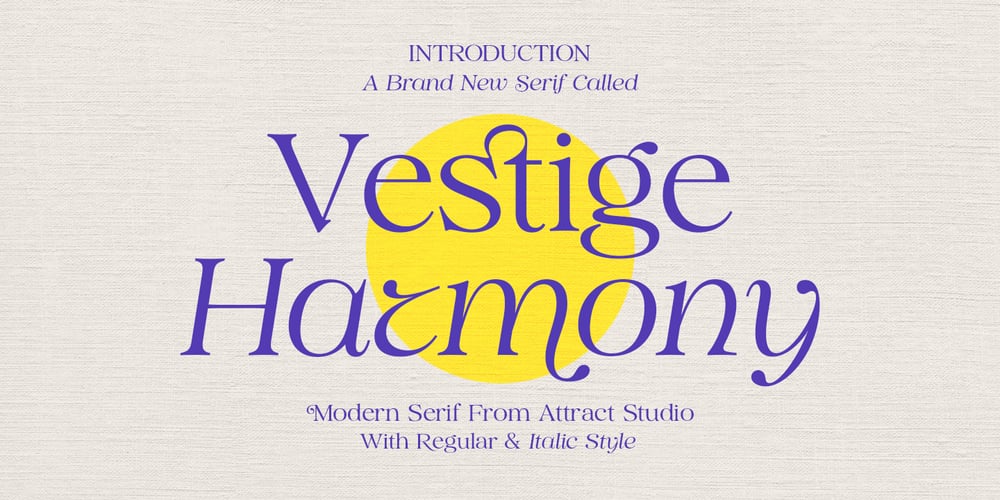
Vestige Harmony Font Family was designed by Muammar Kadafi and published by Attract Studio. Vestige Harmony contains 4 styles and family package options. Vestige Harmony is a stylish modern font that is a mix of serif and script. Its soft curves combined with high-contrast glyphs give it a feminine and masculine quality that feels luxurious.Very suitable for logos, headlines, titles and various other formal forms such as invitations, labels, logos, magazines, books, greeting/wedding cards, packaging, fashion, make up, stationery, novels, labels or all kinds of advertising purposes.Including: 4 Weights Alternates & Ligatures OpenType feature Multilingual support PUA encoded.